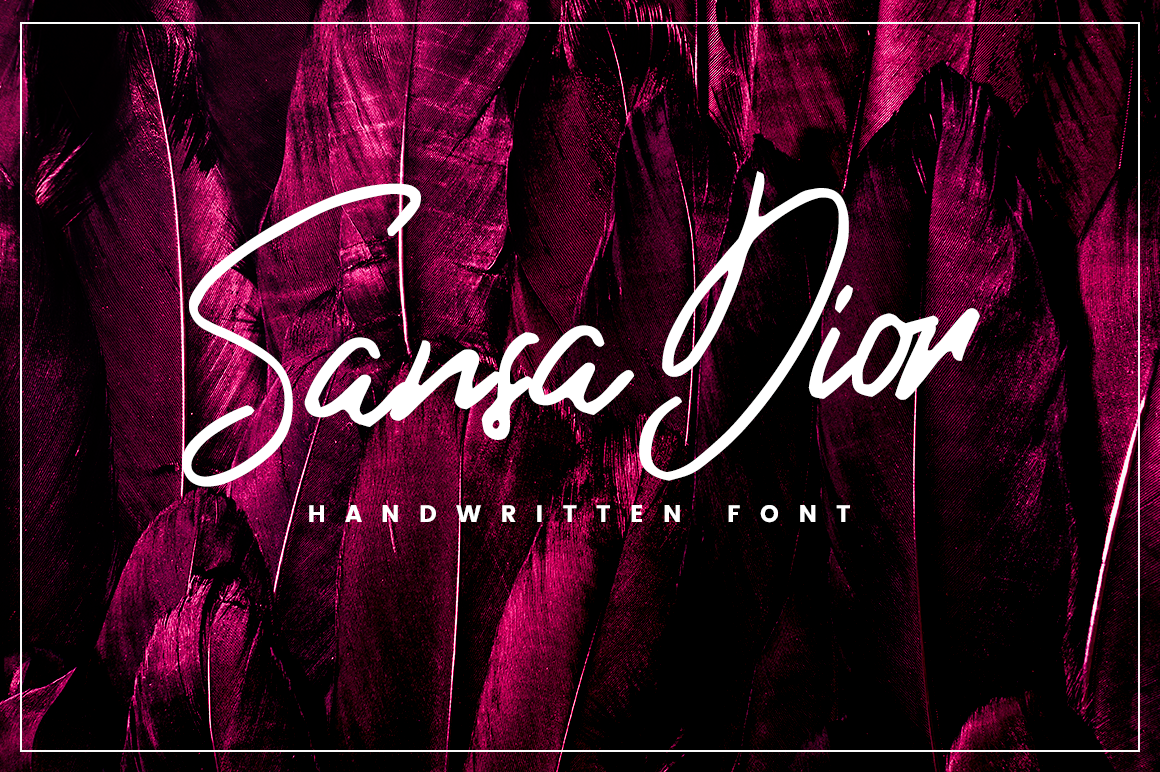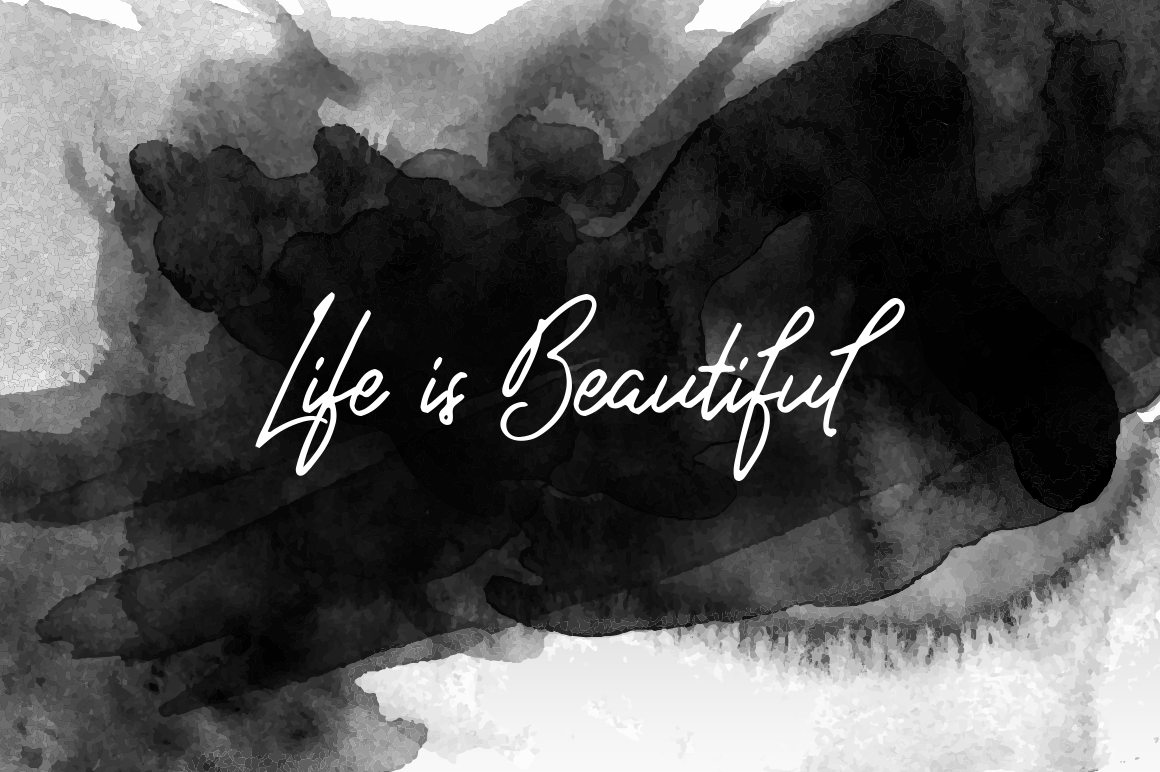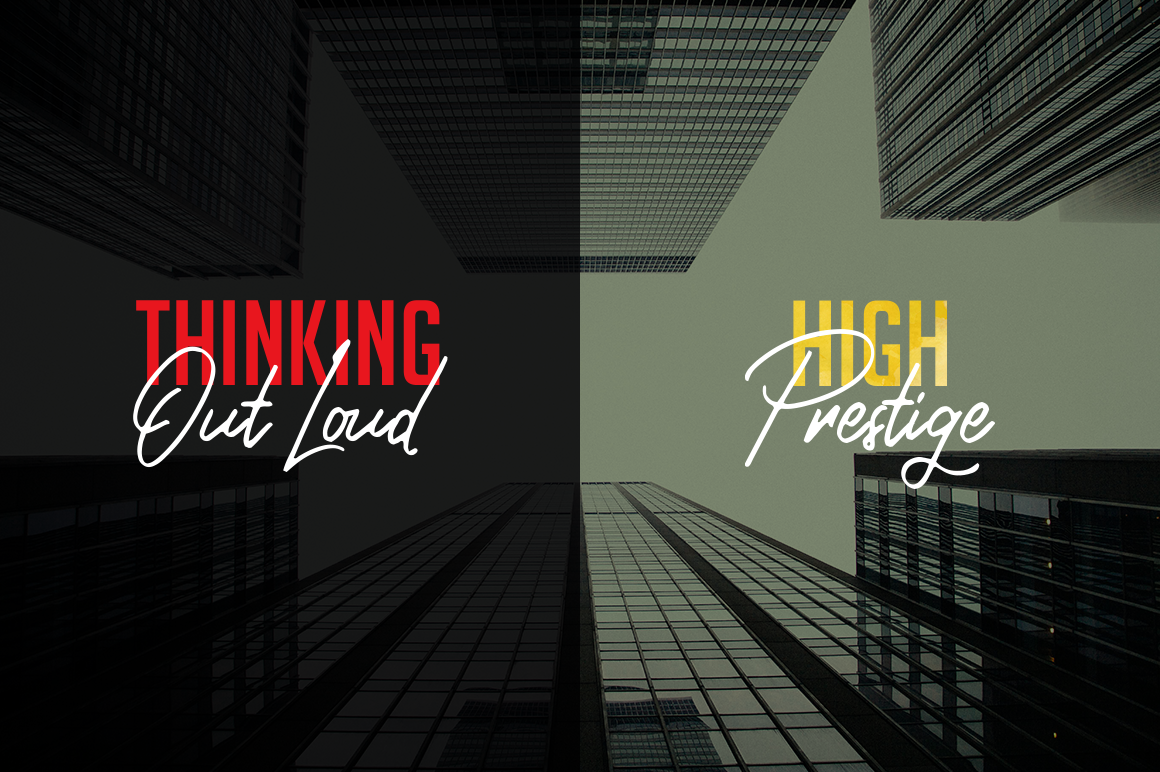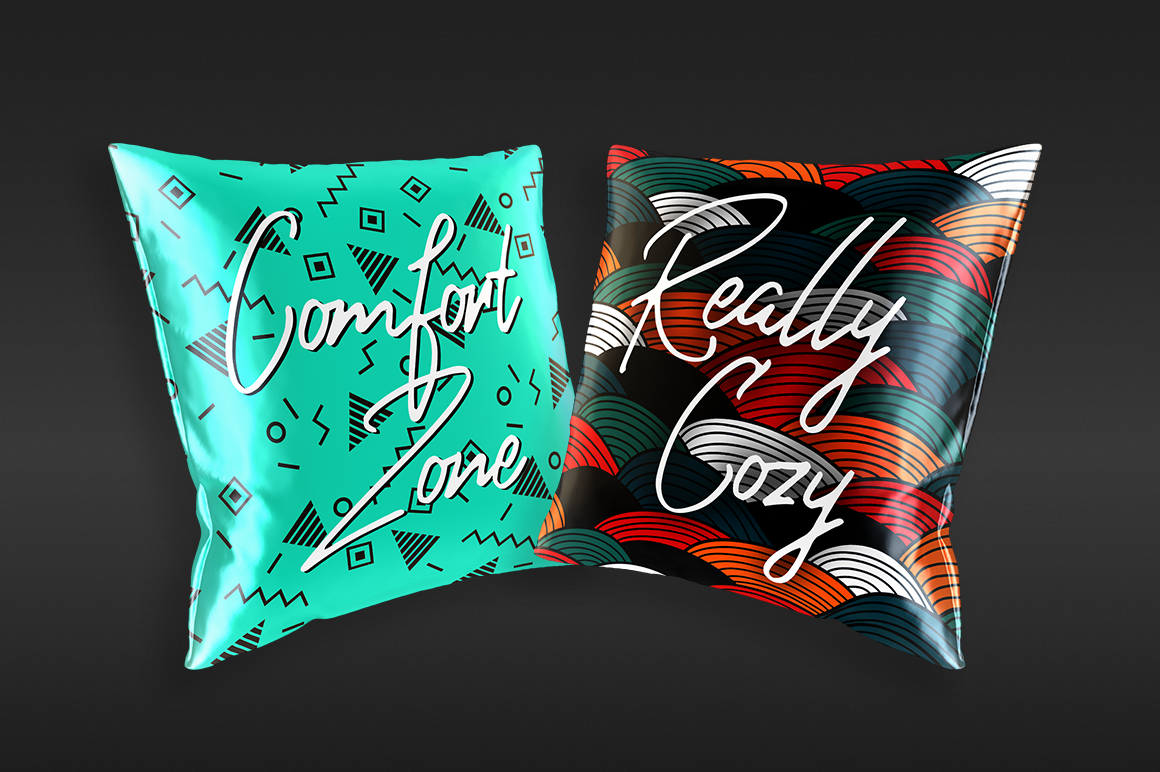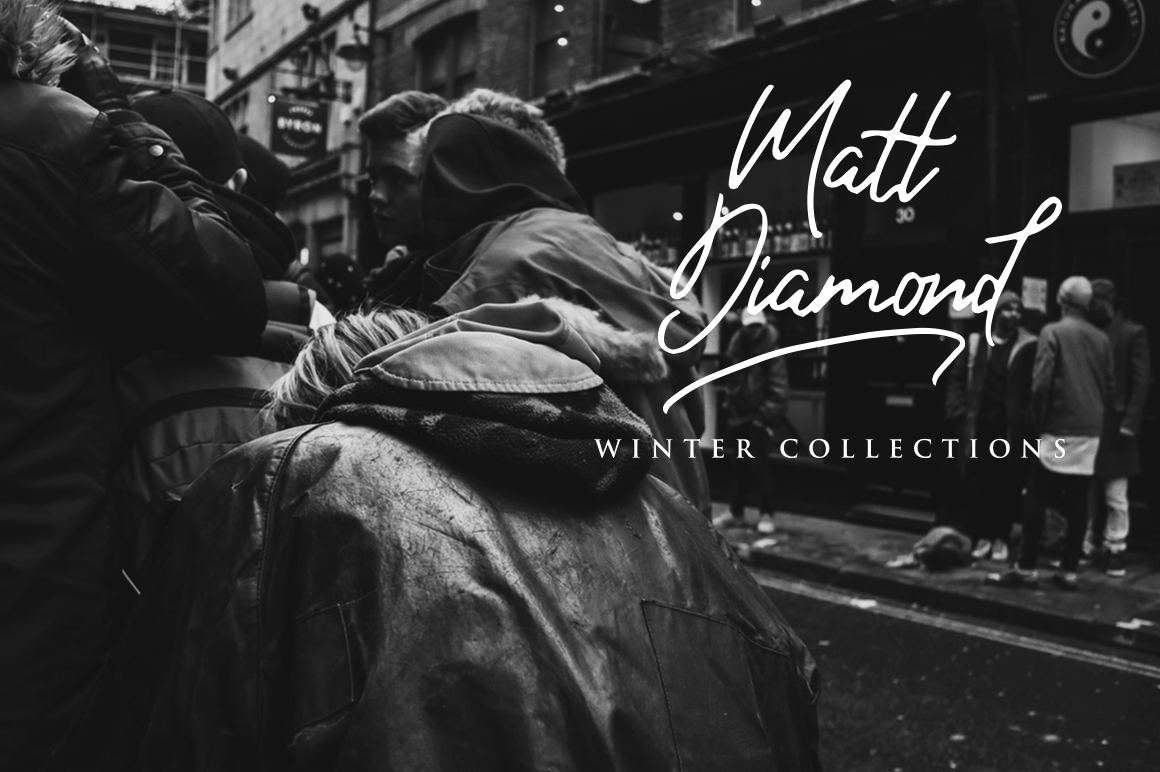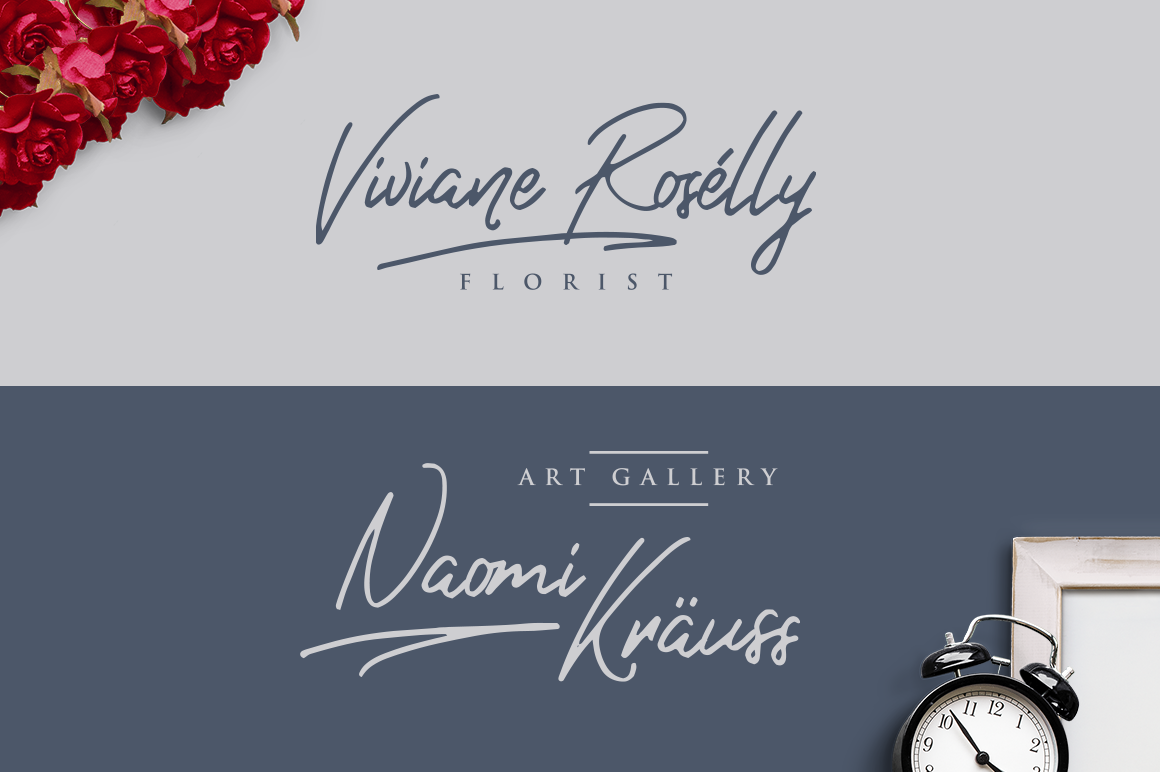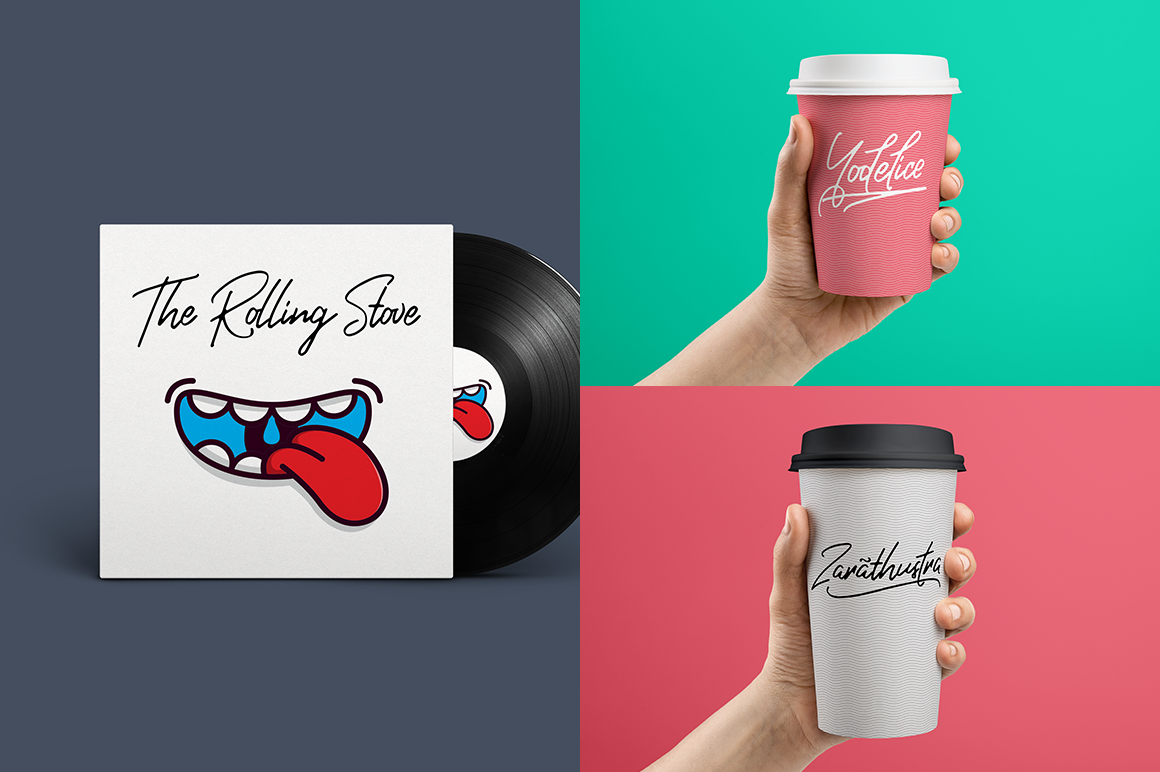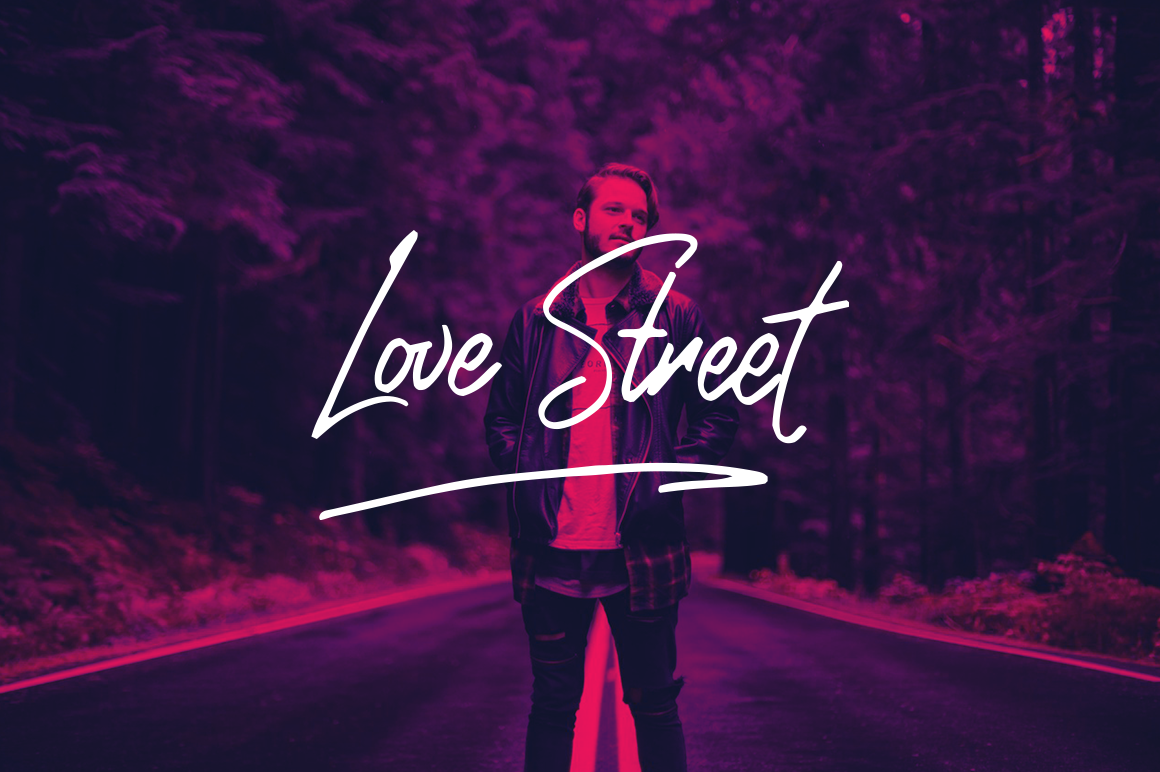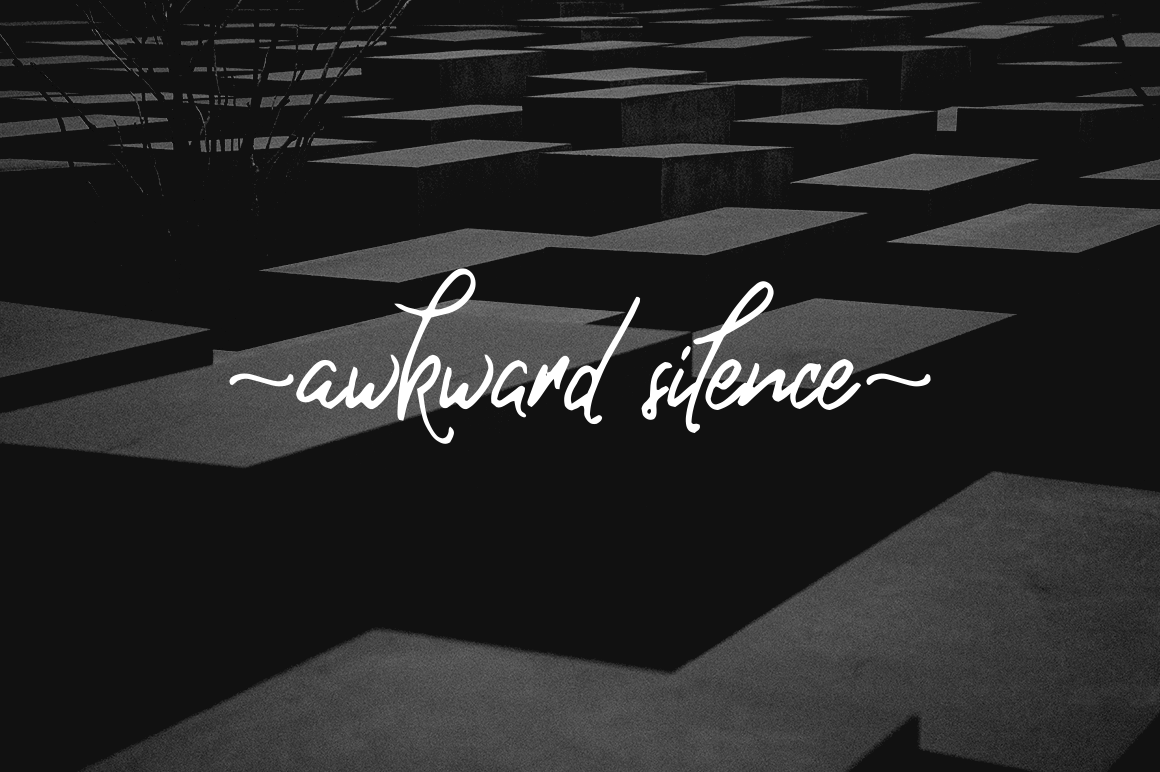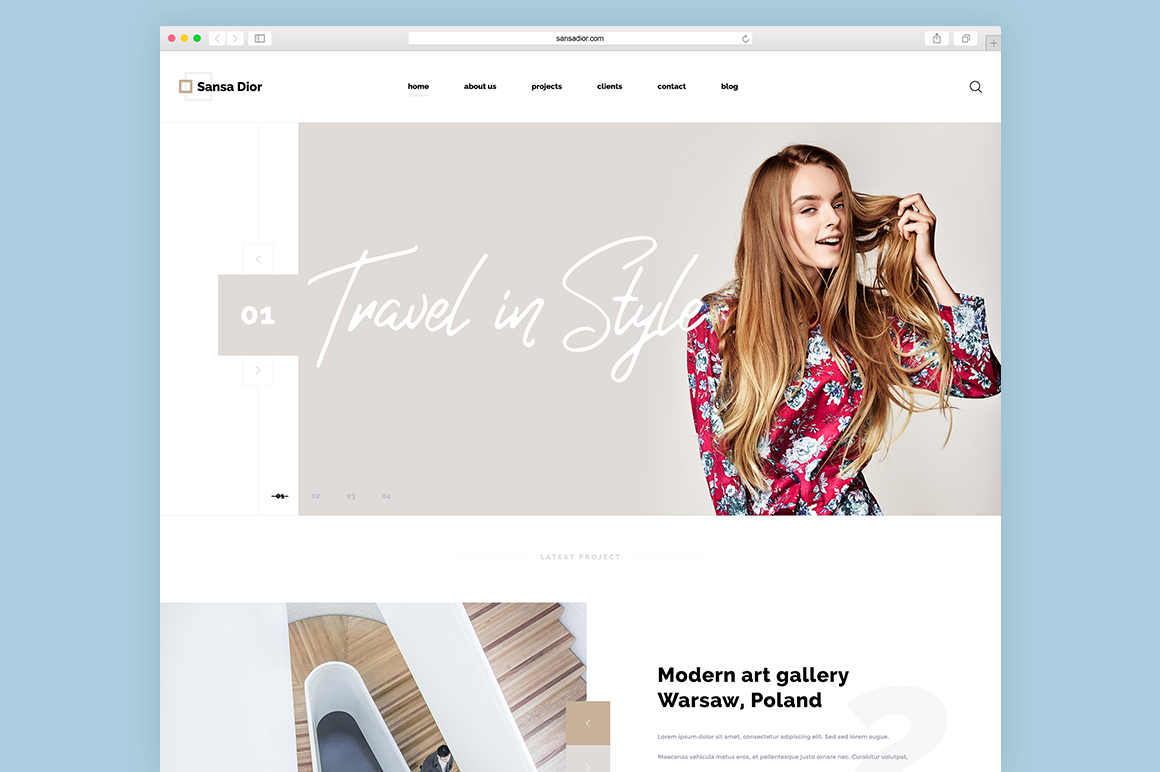
Sansa Dior Font
About Sansa Dior Font
Sansa Dior is casual and carefree brush script, designed to recreate the look of confidence. It’s fresh and charming, based on real handwriting. This playful font is sure to seize attention and recall positivity and excitement. Sansa Dior is a handwritten script works best for fashion, beauty products, apparel and magazines.